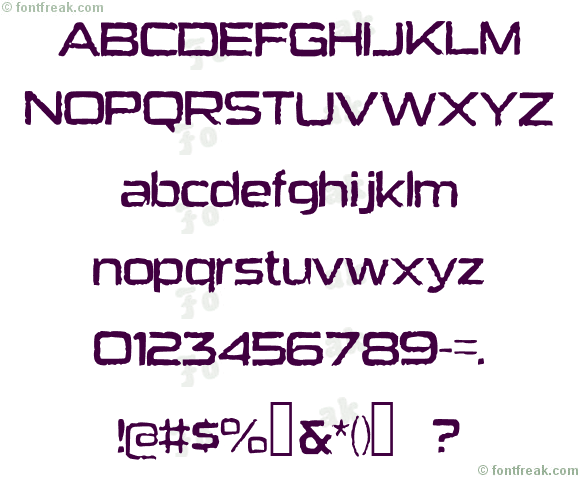
HeavyBomb
About HeavyBomb
HeavyBomb, designed by Leonard Posavec, is a striking display font that embodies a bold and impactful style. This font falls into the category of decorative typefaces, characterized by its hefty stroke weight and unique, rugged aesthetic. The letters feature a hand-crafted appearance with uneven edges, giving them a dynamic and energetic feel. The spacing between the characters is slightly tight, enhancing the sense of cohesion while maintaining readability. This visual style makes HeavyBomb an excellent choice for projects that aim to grab attention and convey a sense of strength.
Ideal use cases for the HeavyBomb font include movie posters, where its boldness can effectively capture the viewer's interest. Additionally, it works wonderfully for branding materials, such as logos for action-oriented businesses or events. Restaurant menus that focus on a modern, edgy vibe can also benefit from the font's distinctive characteristics. Furthermore, HeavyBomb is a great option for promotional graphics, particularly in the entertainment industry, where a playful yet robust typeface can make a strong statement.
The target audience for this font includes graphic designers looking for an eye-catching typeface, small business owners seeking to establish a memorable brand identity, and content creators who want to add a unique flair to their projects.
What sets HeavyBomb apart is its ability to combine a rugged, bold style with versatility. This font not only stands out visually but also communicates a sense of energy and excitement, making it suitable for a variety of applications. Whether you are designing for print or digital media, the HeavyBomb font free download offers an opportunity to elevate your work with its distinctive flair and character.